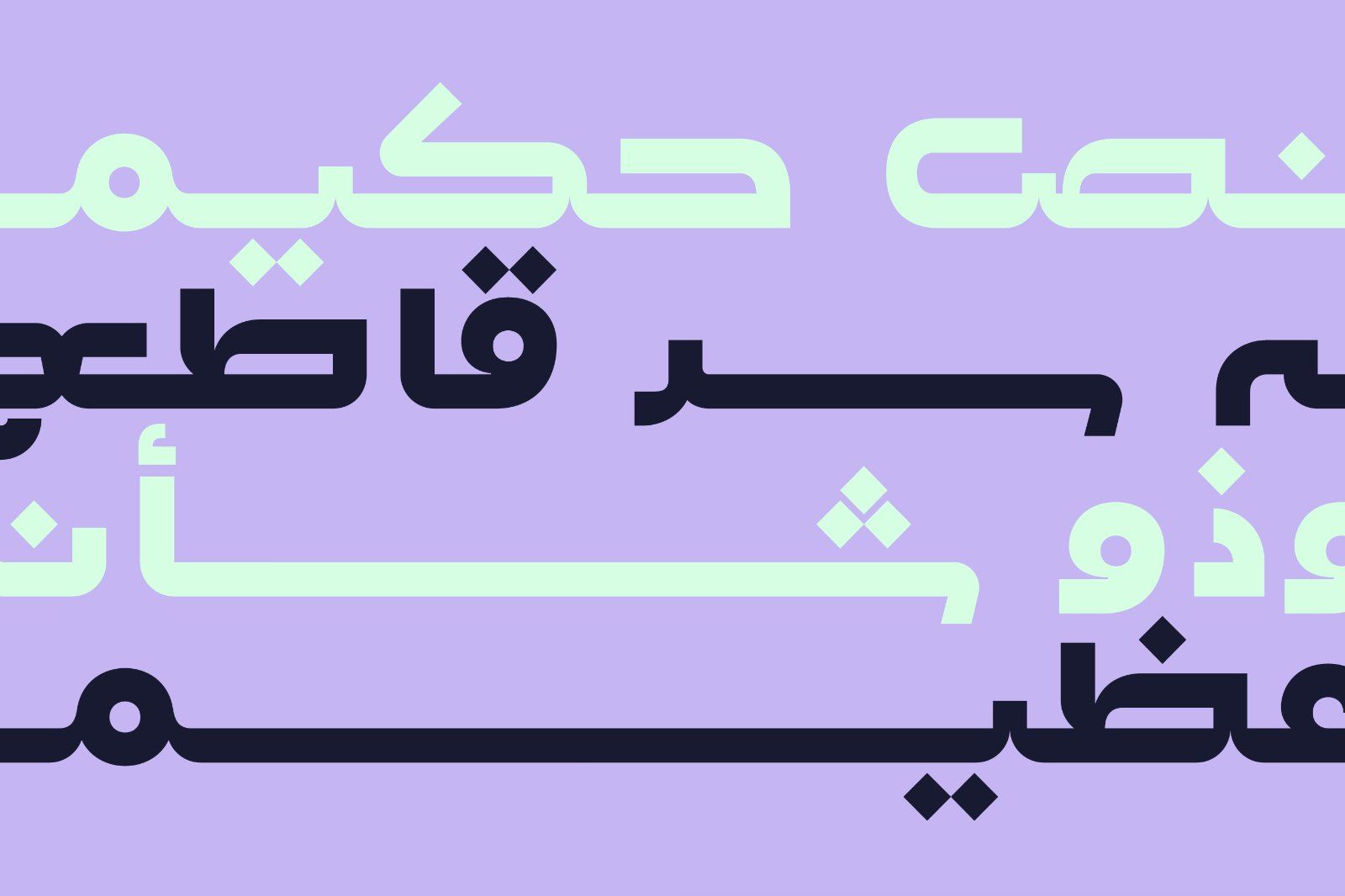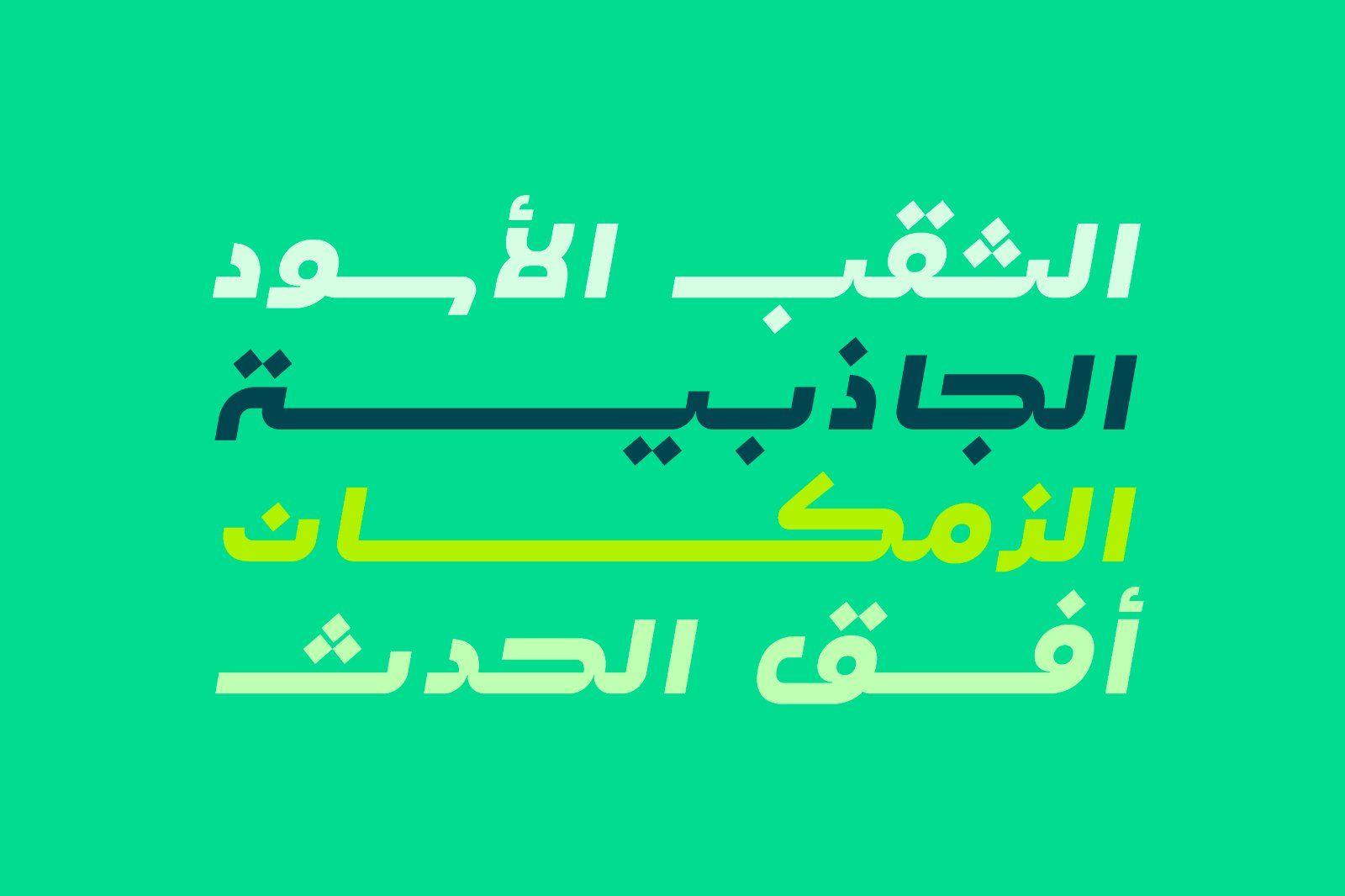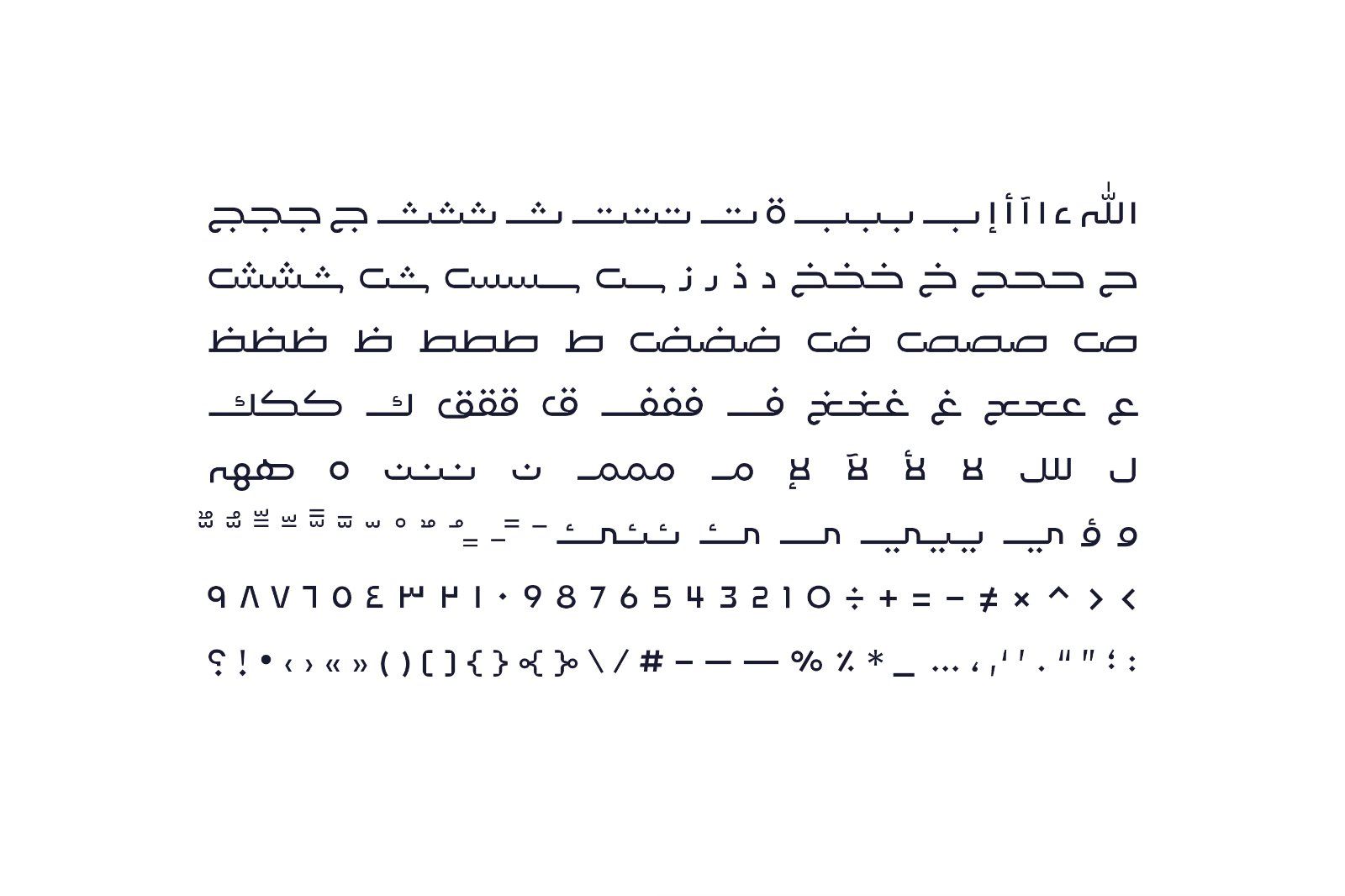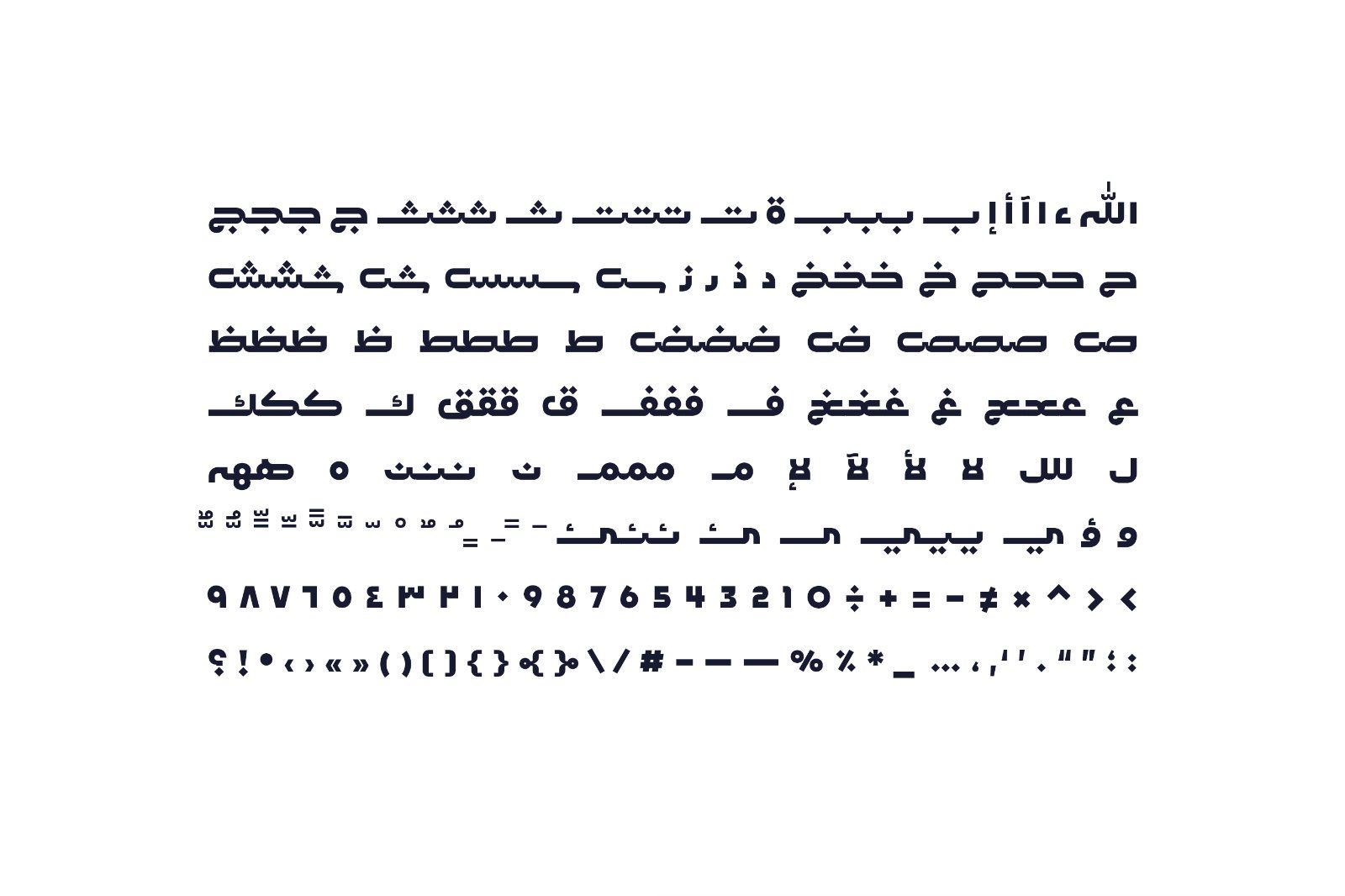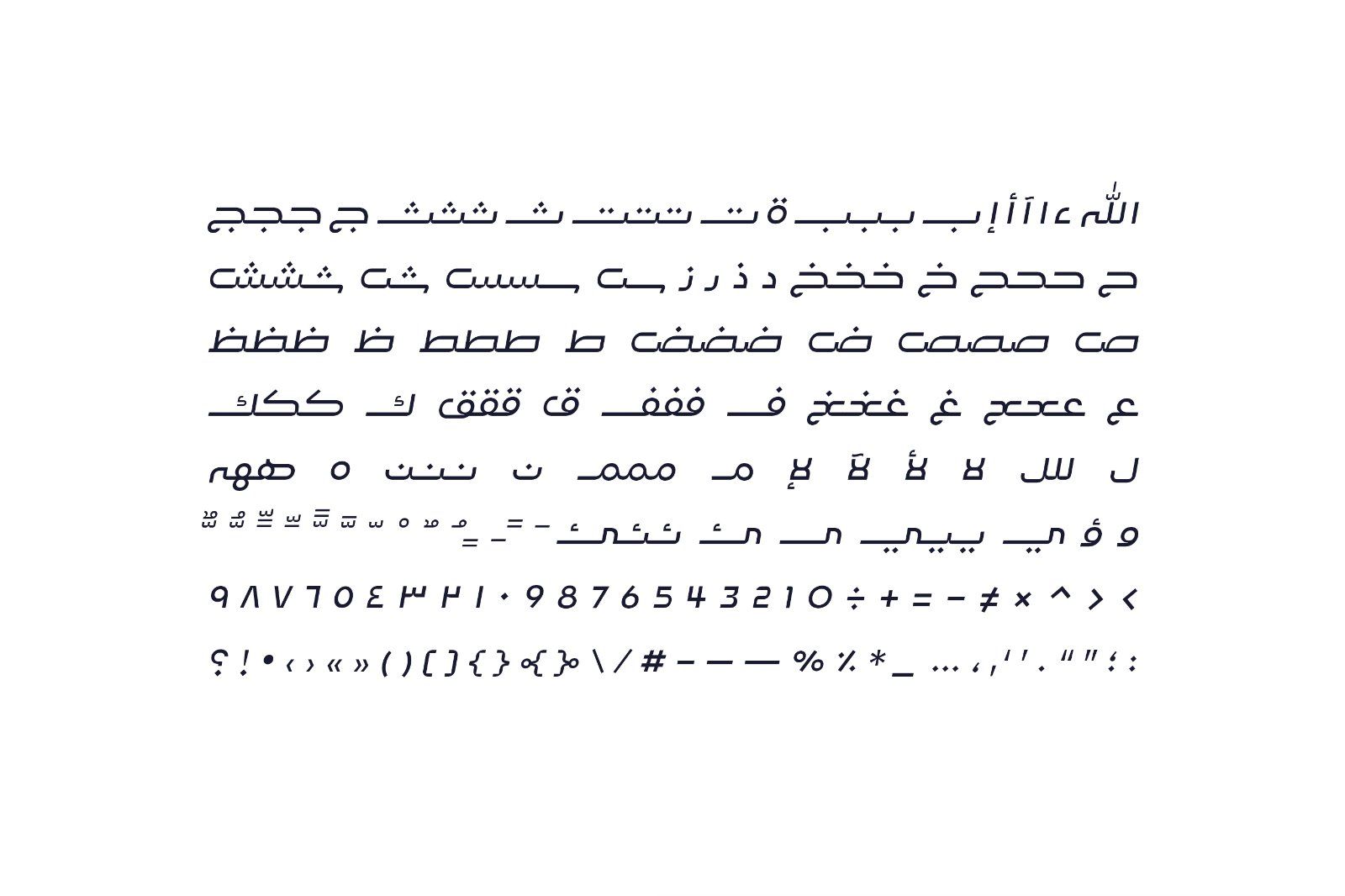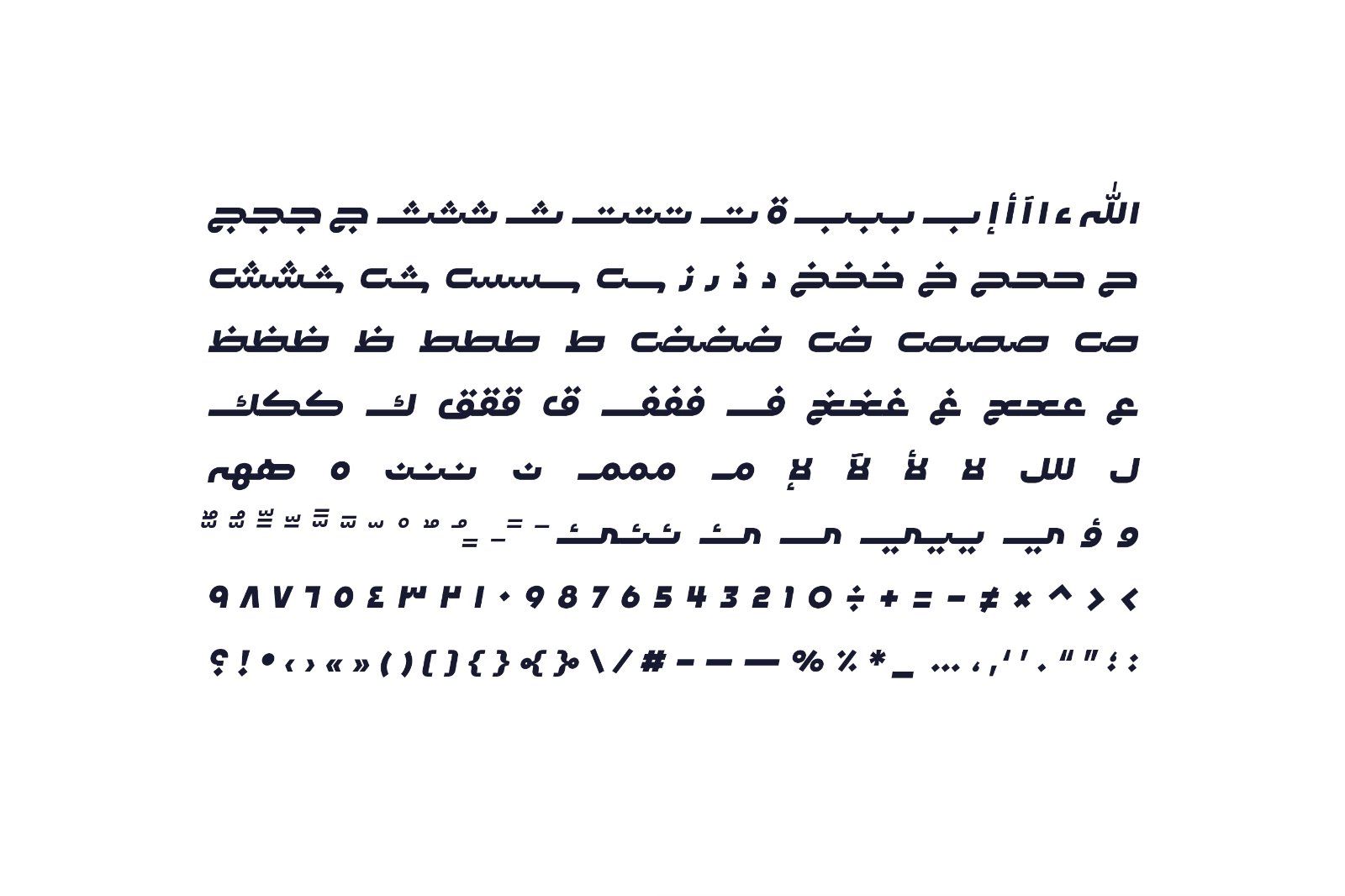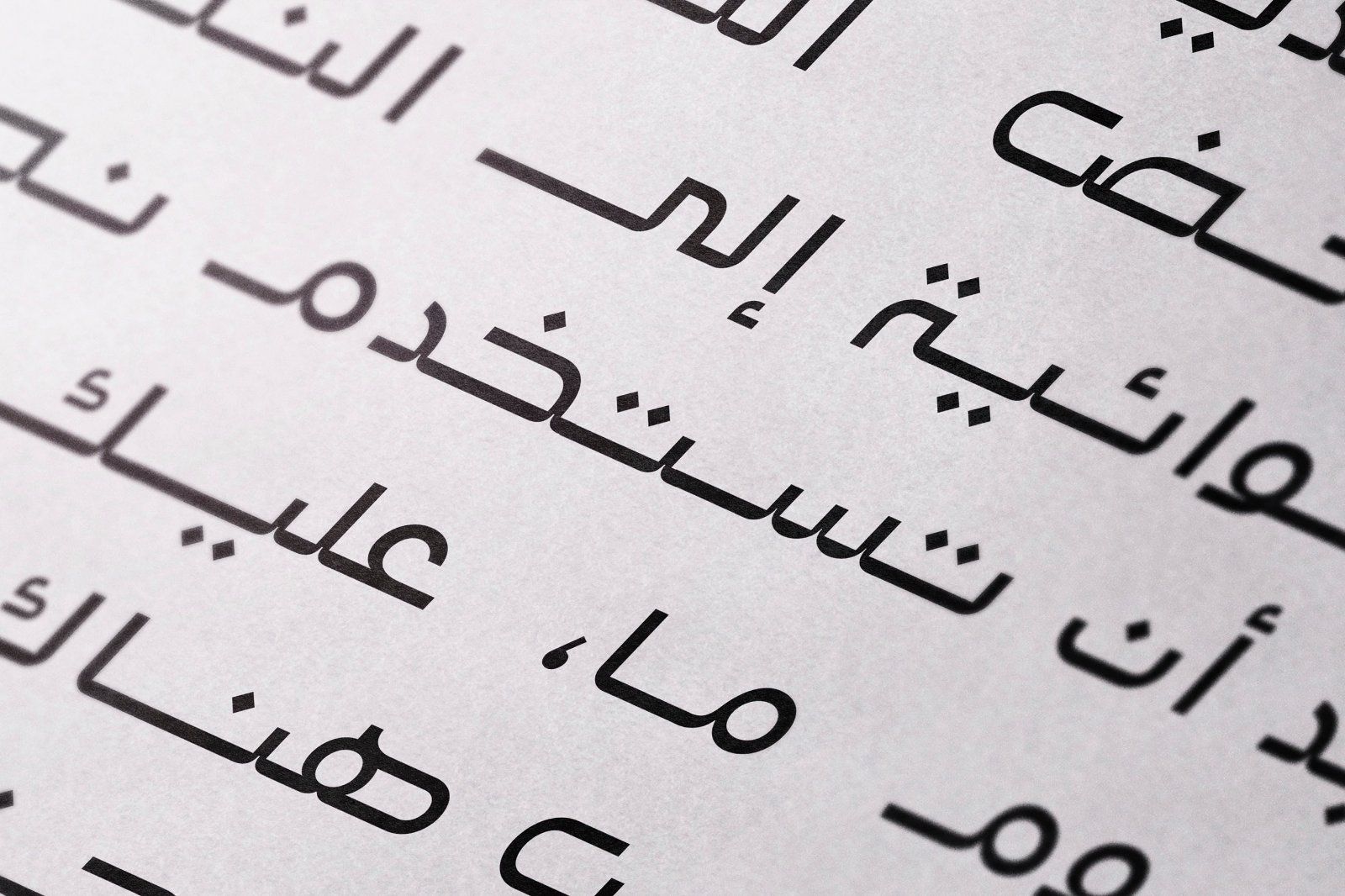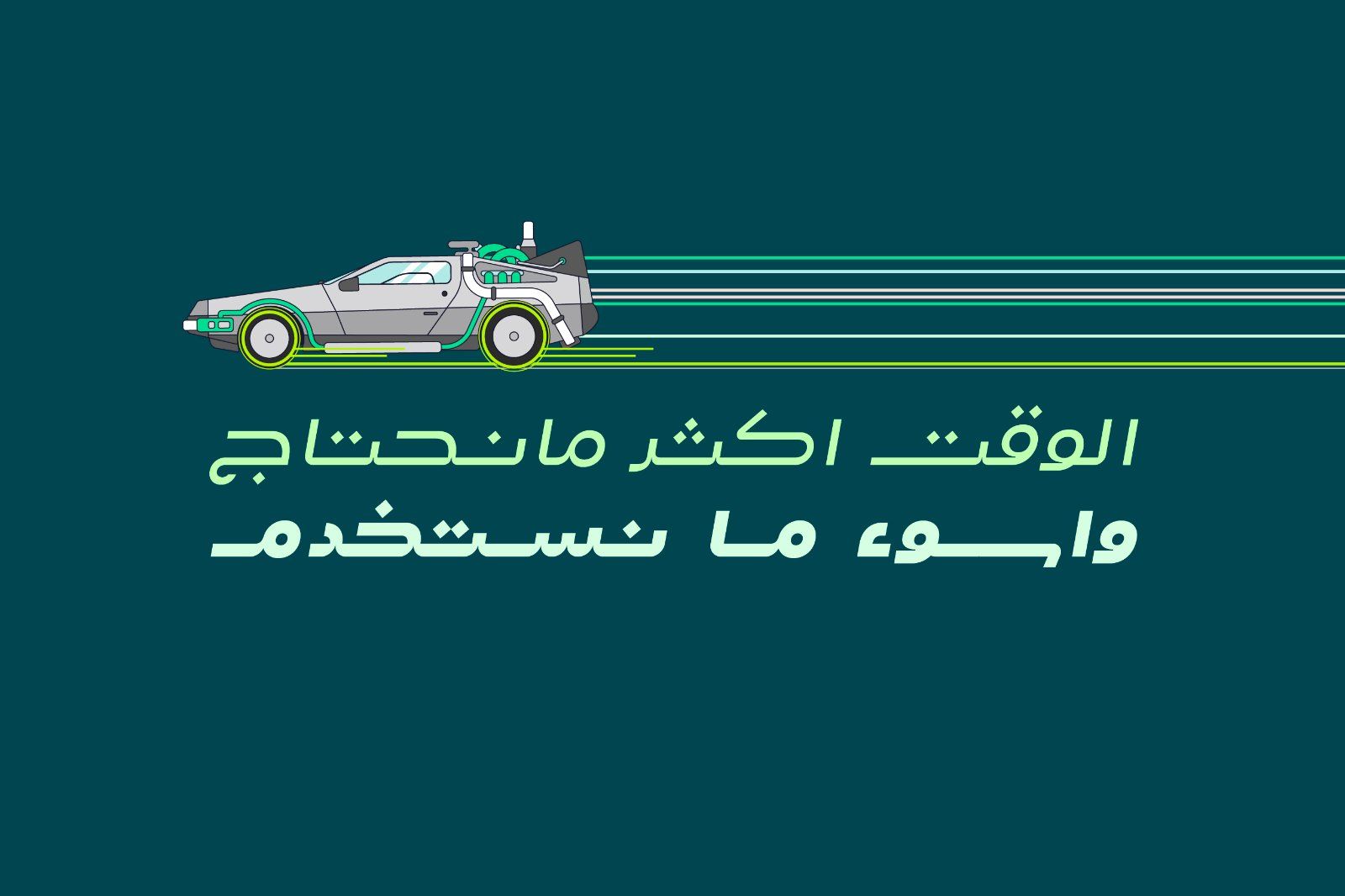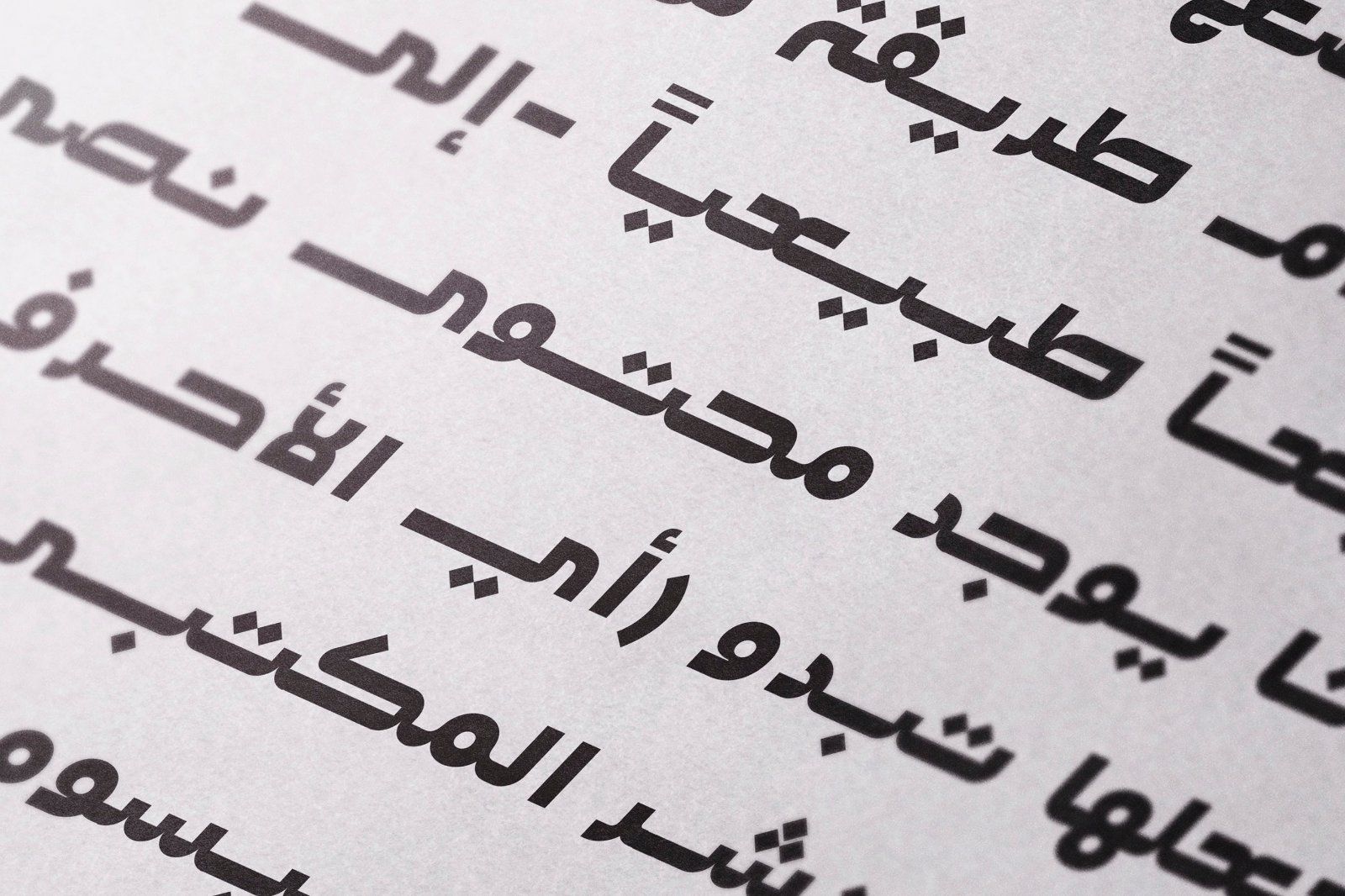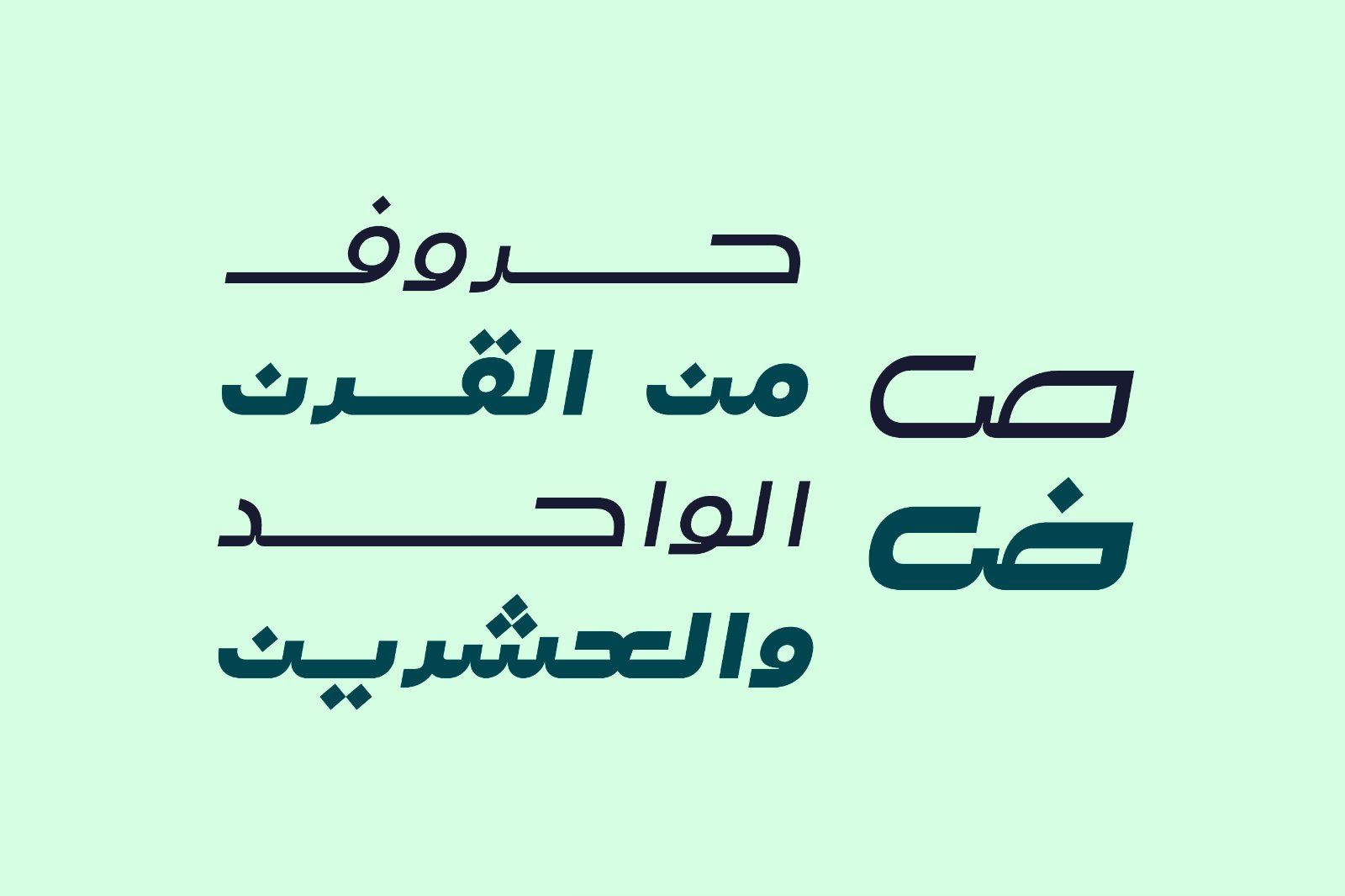
Lafet (the Arabic word for "Catchy") is an Arabic typeface featuring dynamic letterform design. Its style reflects both modernity and simplicity, making it suitable for design projects that require an energetic and powerful look. The Lafet typeface is available in four styles: Regular, Bold, Oblique Regular, and Oblique Bold.